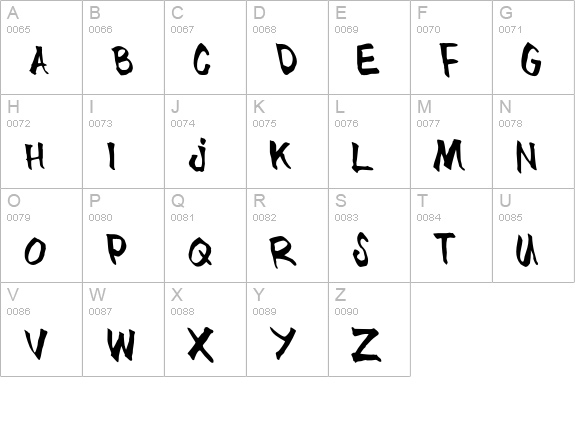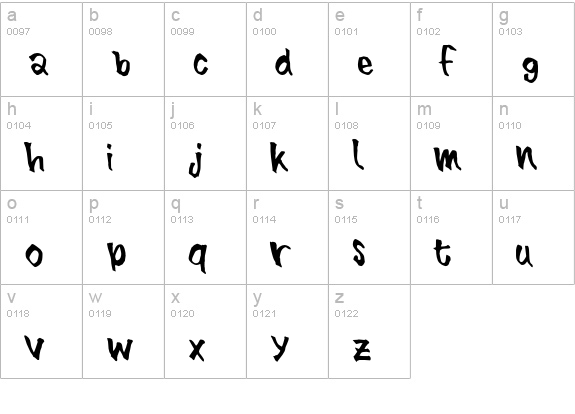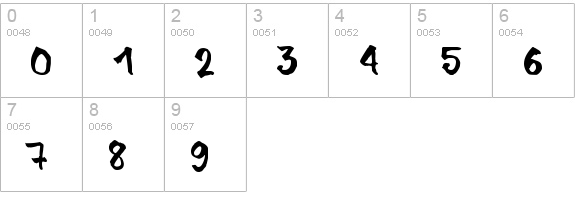
BlueBrush Font Details
BlueBrush font is a modern and elegant typeface that exudes sophistication and creativity. With its sleek lines and stylish curves, this font is perfect for a variety of design projects, from branding to signage to invitations. The versatility of BlueBrush font makes it suitable for both digital and print applications. What sets BlueBrush font apart is its unique blend of traditional and contemporary elements, giving it a timeless appeal that is sure to make your designs stand out. Whether you're creating a logo for a business or designing a wedding invitation, BlueBrush font is the perfect choice to add a touch of class and sophistication. Best of all, BlueBrush font is completely free to download at FontsMarket.com. So why wait? Add this stunning font to your collection today and take your designs to the next level with BlueBrush.